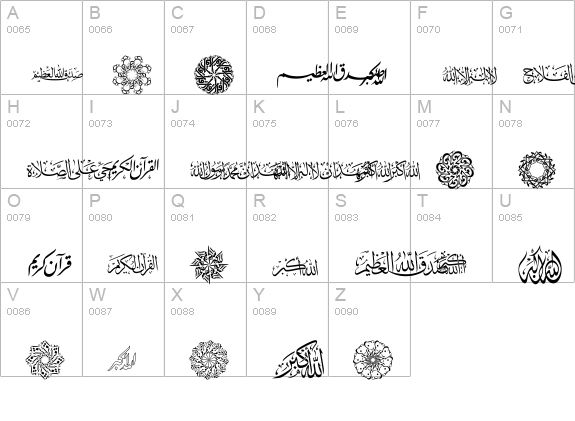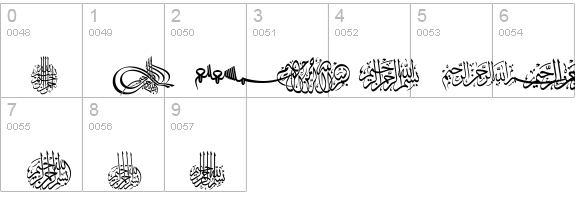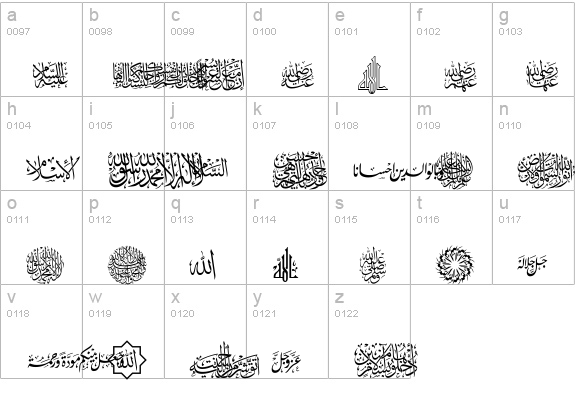
AGA Islamic Phrases font is a stunning and elegant typeface that beautifully captures the essence of Islamic calligraphy. With its intricate and flowing letterforms, this font is perfect for adding a touch of sophistication and cultural richness to your designs. Each character is meticulously crafted to reflect the beauty and harmony of Islamic art. This font is not only visually striking but also carries a deep sense of tradition and spirituality. Whether you are working on a project related to Islamic culture, art, or religion, AGA Islamic Phrases font will bring an authentic touch to your work. Best of all, AGA Islamic Phrases font is freely available to download at FontsMarket.com. So, you can easily incorporate this exquisite font into your projects without any cost. Don't miss the opportunity to enhance your designs with the timeless beauty of AGA Islamic Phrases font.